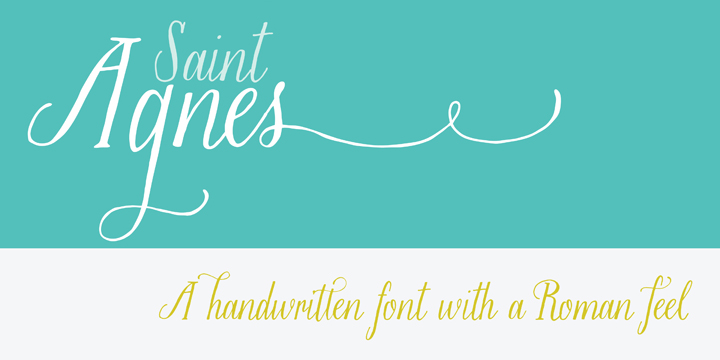
Saint Agnes Font is perfect for sacred music program designs, religious ceremony invitations, spiritual retreat center branding, church bulletin layouts, ecclesiastical publication materials, contemplative prayer book covers, monastery gift shop signage, and reverent memorial service communications.
Saint Agnes Font is exciting because it embodies the serene devotion of sacred tradition with its gracefully reverent letterforms that seem to whisper with the gentle wisdom of centuries-old prayers and radiate the peaceful sanctity of hallowed spaces. The typeface captures the timeless beauty of spiritual contemplation and the humble elegance of faith-centered living, creating an immediate sense of sacred tranquility and divine grace that resonates with those seeking deeper spiritual connection and meaningful worship experiences.
Saint Agnes Font family includes Light, Regular, Medium, Bold, and Sacred variants, complemented by ecclesiastical ornamental elements and contemplative decorative flourishes, offering designers reverent typography tools for creating communications that honor spiritual traditions while inspiring contemporary faith communities and seekers of divine truth.
Whether you're developing a spiritual community's brand identity, designing religious education materials, or creating contemplative worship content, Saint Agnes Font Free Download provides unmatched sacred authenticity and spiritual appeal. This blessed typeface perfectly balances religious tradition with contemporary accessibility, ensuring your communications resonate with diverse faith communities who value both ancient wisdom and modern spiritual expression. The font's reverent character variations and sacred rhythm make it particularly effective for organizations that emphasize spiritual growth, community worship, and the kind of faith-centered approach to life that transforms ordinary moments into opportunities for prayer, reflection, and divine connection. Faith community leaders consistently select Saint Agnes Font when projects require typography that communicates reverence, hope, and the kind of spiritual depth that creates sacred spaces where people can encounter the divine, find peace in troubled times, and build meaningful relationships with God and one another, making it indispensable for religious organization branding, spiritual education marketing, and any application where sacred typography can honor the beautiful tradition of faith and inspire people to open their hearts to the transformative power of divine love, grace, and the eternal hope that sustains believers through every season of life.